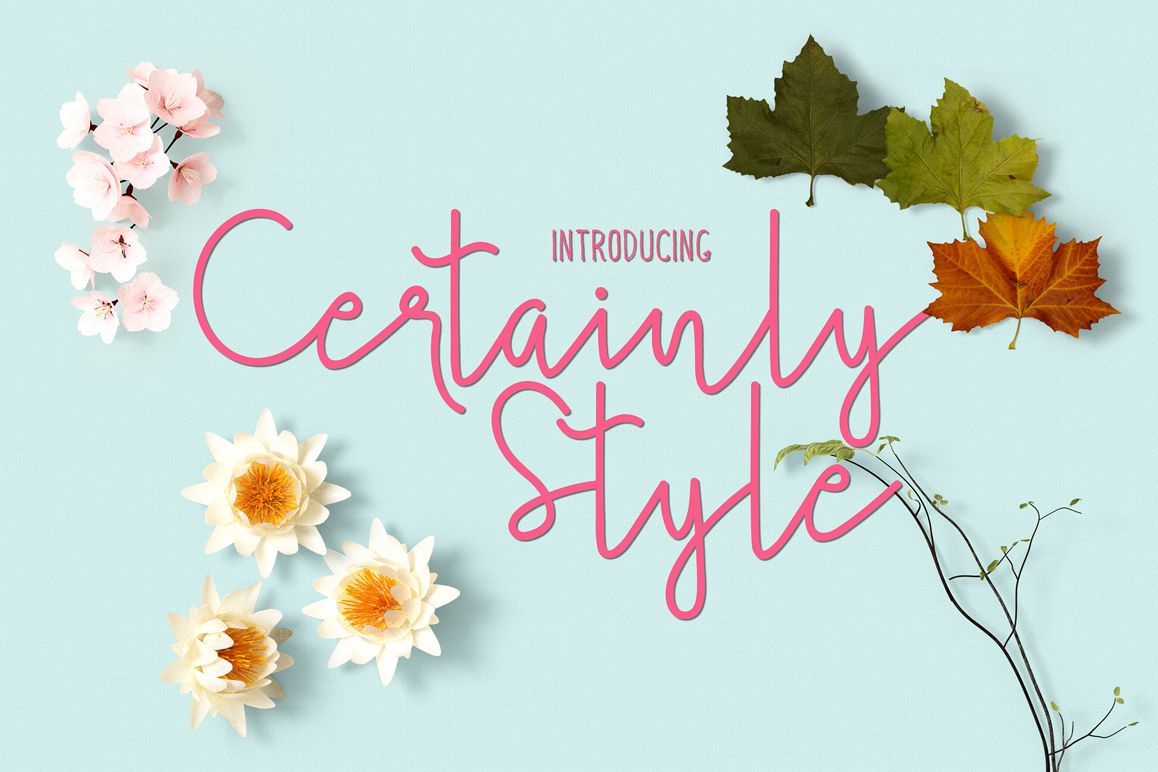
Certainly Style
Certainly Style is random handbrush, contemporary approach to design, handmade natural with an less regular baseline. Suitable for use in title design. Such as apparel, invitations, children books tittle, stationery design, quotes, branding, logos, greeting card, t-shirt, packaging design, poster and more.